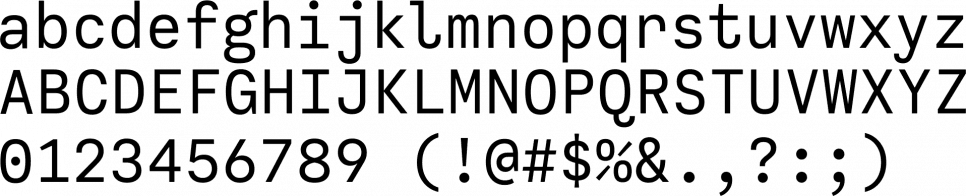
9 New Programming Fonts
I don't know about you, but I'm always on the lookout for new fixed-width fonts to use while programming. There are standards like Ubuntu Mono, Consolas, and the granddaddy Courier. Maybe these just don't cut it for you, or maybe you're just a font geek and looking for something new.
That's what this page is. I've gone through a font website called FontSpring and found a handful of fonts that look like they'd be great for writing code, but are not ones I've seen before.
Ballinger Mono
I think my biggest issue with this one, and it's pretty common with programming fonts, is that the lower case ell and one look too much alike. Here it looks like the ell has a straight bar across the top and the one is curved. But I can imagine that when the font is smaller that would be more difficult to see.
Calling Code
Calling Code is the first one that jumped out at me because of the lower cased ell. I've always preferred fonts where the ell and one are obviously different. I also like the zero with a dot rather than a slash.
And totally not quantifiable for any reason, but I really like the percentage sign on this one. That's one of those characters that doesn't get much love. They usually all look alike.
Code Pro
This one is a little too close to a normal font like Arial for my taste, but would work okay if that’s your thing. It does look like a couple of the characters may not be fixed width though. I’m looking at you lower cased i.
Code Saver
Code Saver would probably be my favorite on this page if it wasn't for the slash zero. I like dot zeroes better.
Codec
Code is available in 2 different groups: Codec Cold and Codec Warm with a total of 44 different faces.
Klartext Mono
If nothign else, this one has the best name of any font on this page.
Klartext Mono looks like it started life out trying to mimic Courier and then went and did its own thing. This one seems like it would be really good while demoing code on a projector. It's heavy enough to be noticeable and has easily identifiable characters.
Mingray Mono
This one is too heavy for me, at least to code with. But I do thing it would make a good heading font when doing demos. I'm thinking more like the headers in a Power Point deck rather than the code itself.
Mono Condensed
This one also doesn't look like a coding font, but would mostly work as one. Only real complaint I have is that the zero and capital O are way too close to each other. Not a problem if you're typing, but could be an issue coding.
Vin Mono Pro